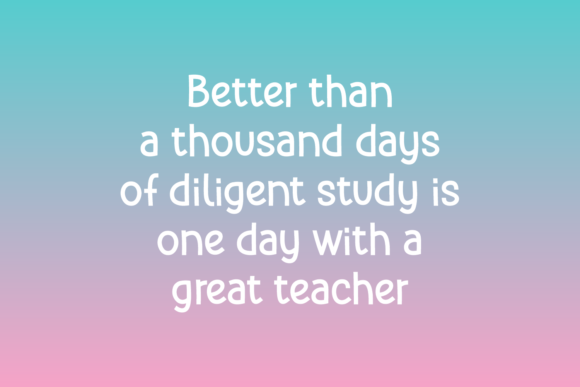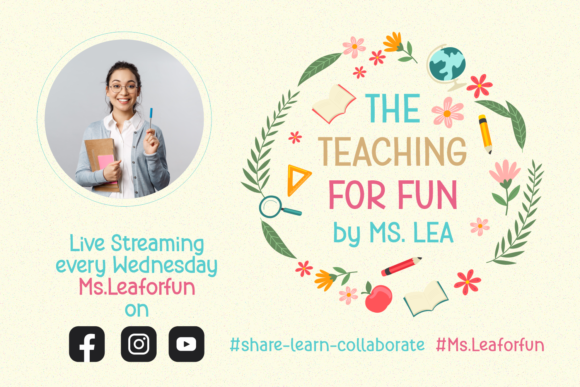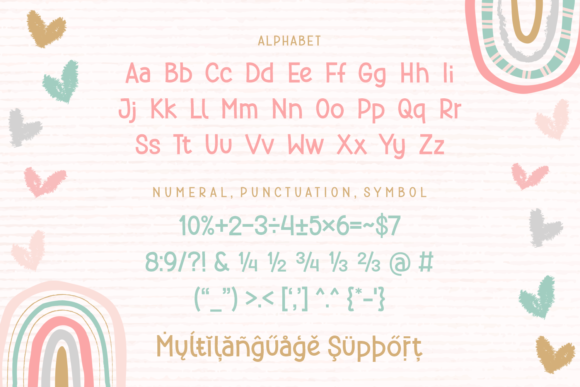
Ningst Lovely Teacher Font: Free Download Now
Introduction to Ningst Lovely Teacher Font
Ningst Lovely Teacher is a childish, easy-to-read display font that conveys impeccable friendliness.
Why Choose Ningst Lovely Teacher Font?